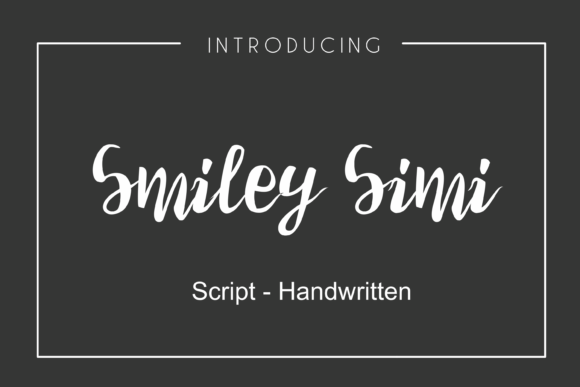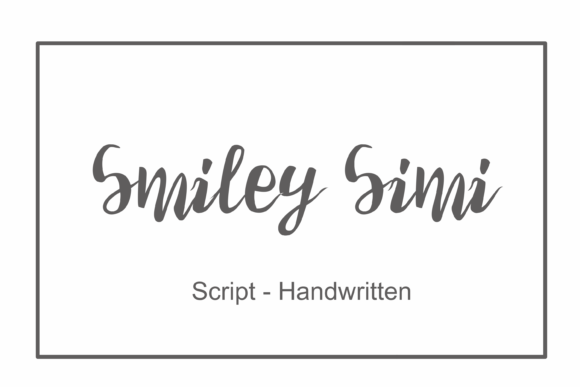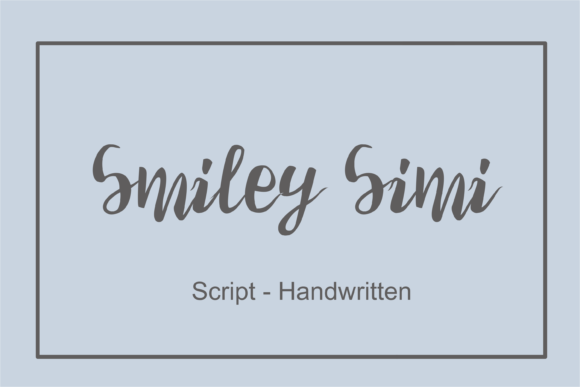
Smiley Simi Font
About Smiley Simi Font
Smiley Simi is a bouncy handwritten font, carefully handcrafted to become a true favorite. Its casual charm makes it appear wonderfully down-to-earth, readable and, ultimately, incredibly versatile. Smiley Simi will look outstanding in any context, whether it’s being used on busy backgrounds or as a standalone headline!